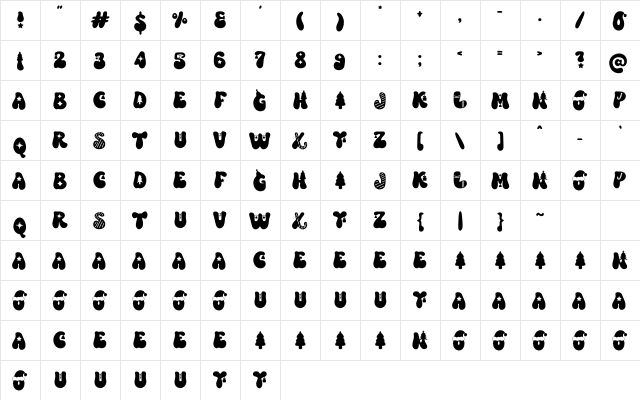
Retro Christa Regular
Design Context for Retro Christa
Retro Christa wears its vintage influences proudly, with letterforms that recall mid-century signage, classic packaging, and nostalgia-driven design.
Font Pairing: Combine Retro Christa with a simple slab or neutral sans - period-accurate companions reinforce the vintage feel without competing for attention.
Pro Tip: Lean into Retro Christa's period character by pairing it with aged paper textures, muted colour palettes, and vintage illustration styles.